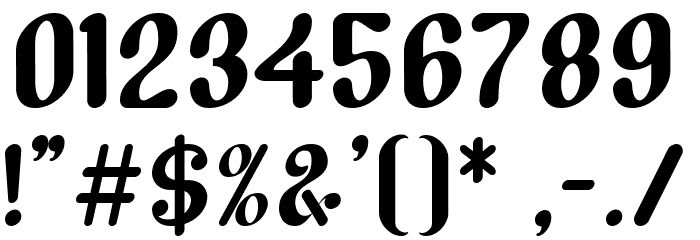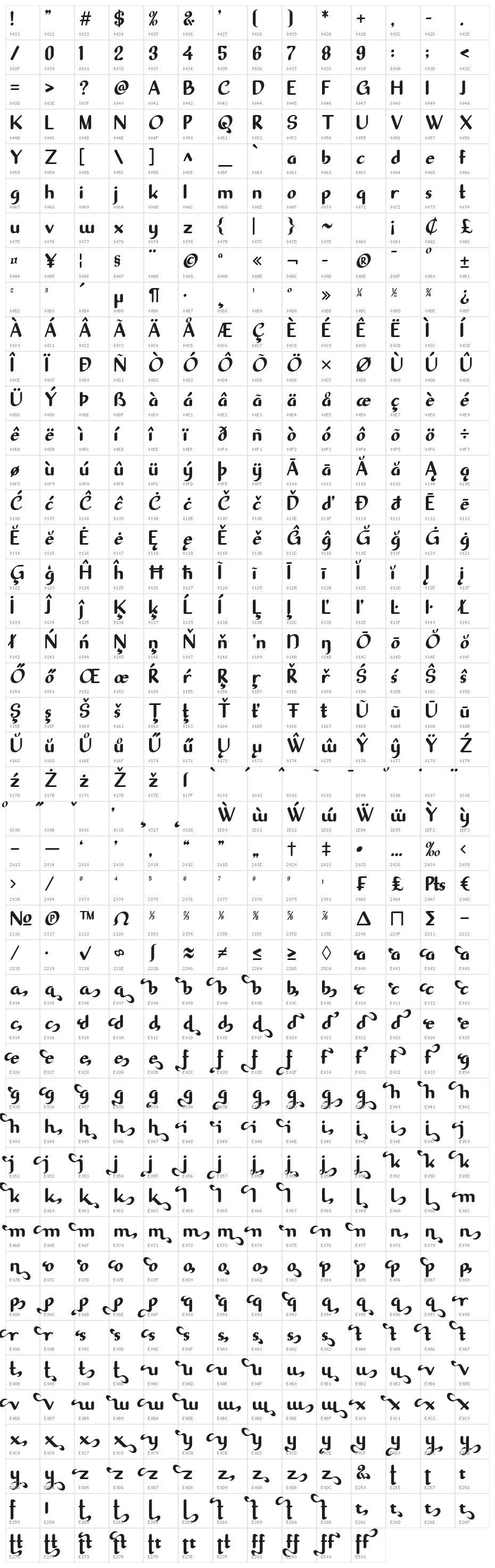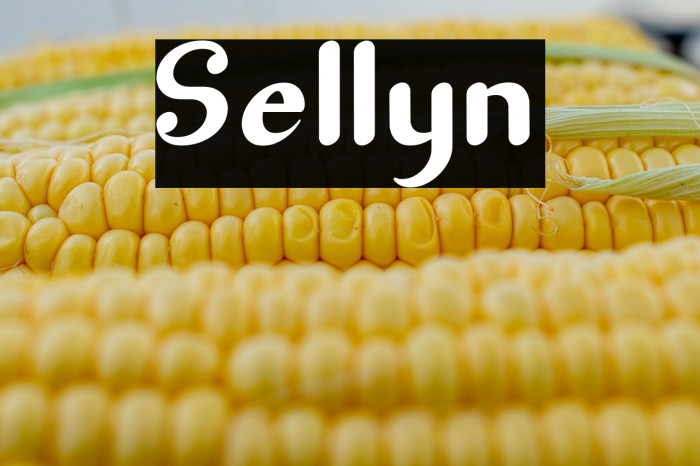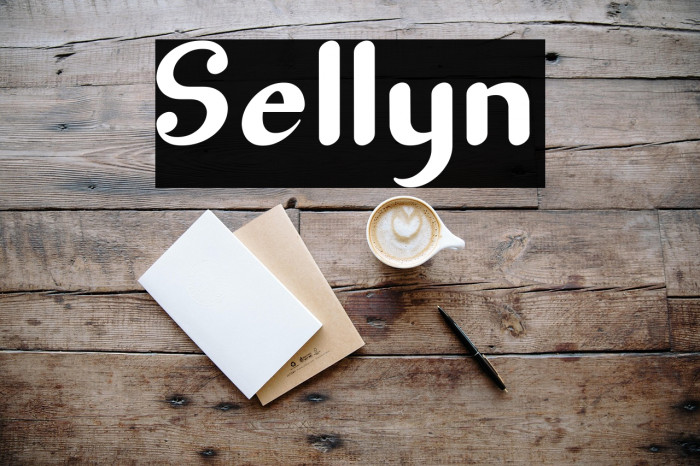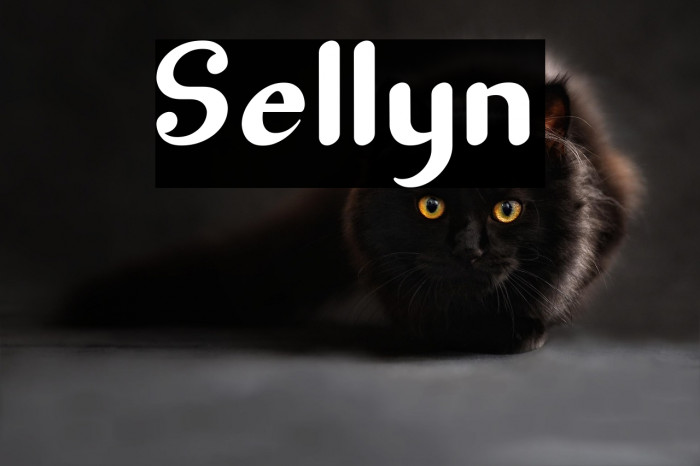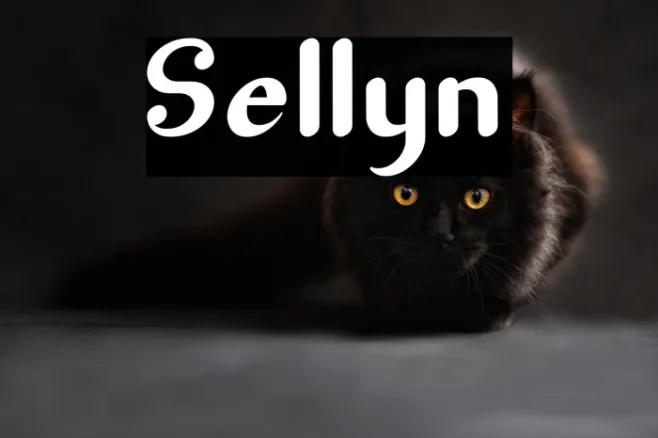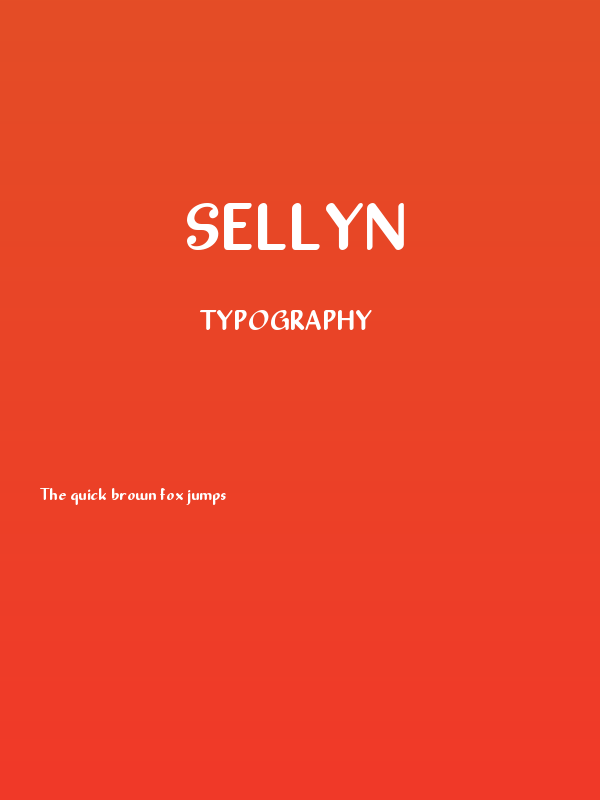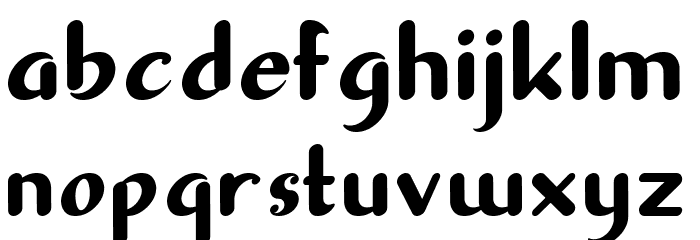
Sellyn Font
Sellyn Description
This font features a playful and rounded design, characterized by its smooth curves and bold presence. The letters are well-balanced, with a consistent stroke width that gives it a cohesive look. The uppercase letters are slightly taller than the lowercase, adding a sense of hierarchy and readability. The numerals are distinct and easy to read, with a style that matches the overall playful theme. Special characters are included, maintaining the same rounded and bold aesthetic. This font is versatile, suitable for both digital and print media, and can be used to add a touch of whimsy to any project.
| Overall Style | Playful, Modern |
| Proposed Projects | Ideal for children's books, playful branding, posters, and social media graphics. |